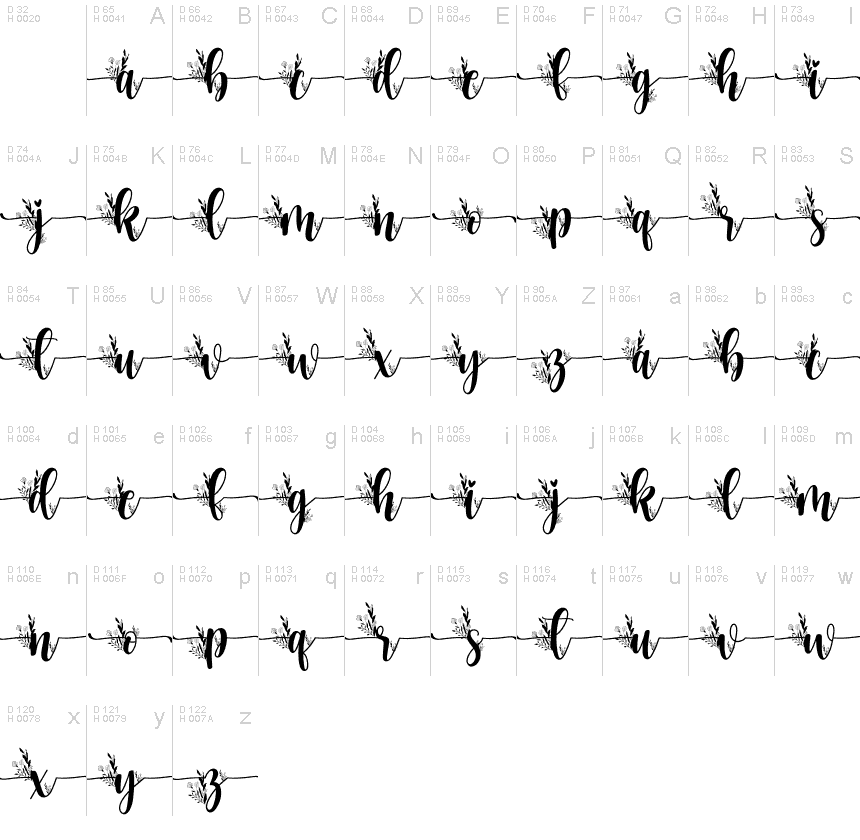
Flower Monogram
Flower Monogram by Scratchones is an enchanting display font that effortlessly blends the artistry of nature with typographic flair. Crafted with a decorative style, this semi-light typeface weaves floral elegance into each character, creating a tapestry of botanical beauty ideal for personalized monograms and artistic projects. Its whimsical curves and fine details evoke a hand-drawn appearance that captures the imagination, making it perfect for invitations, branding, and unique designs seeking a touch of organic sophistication.